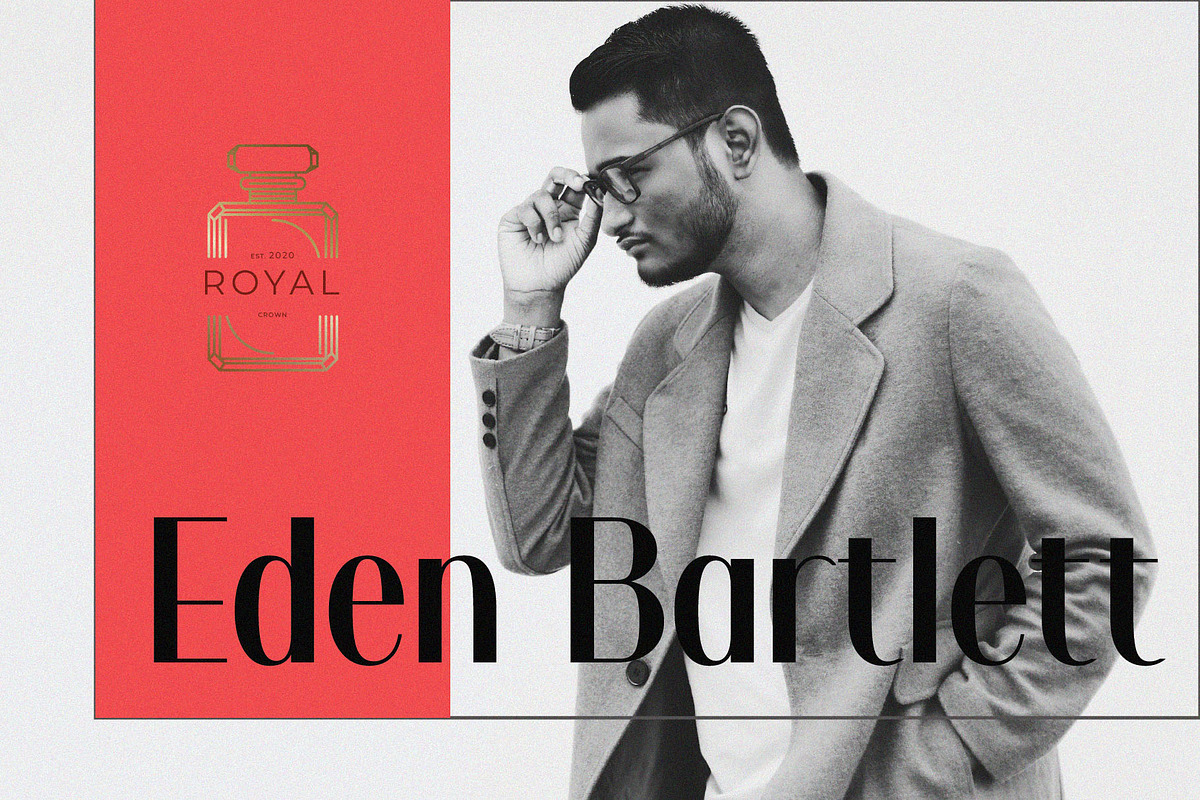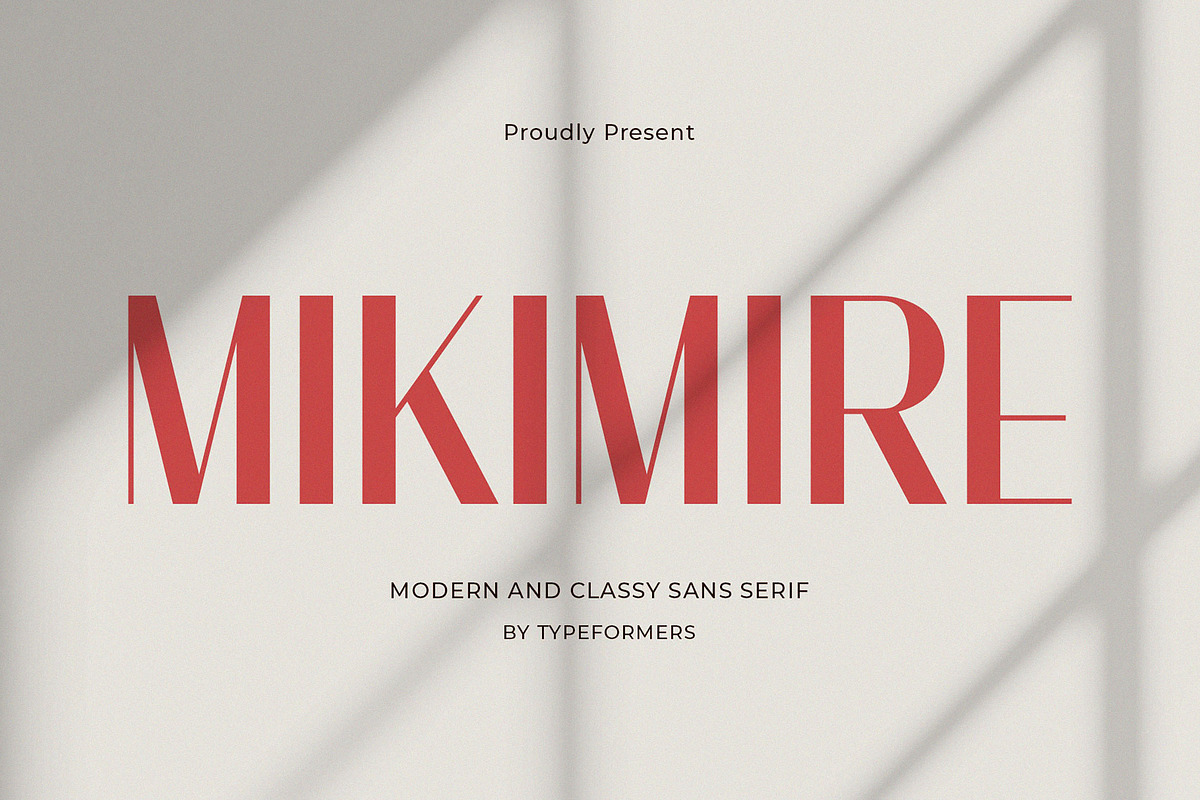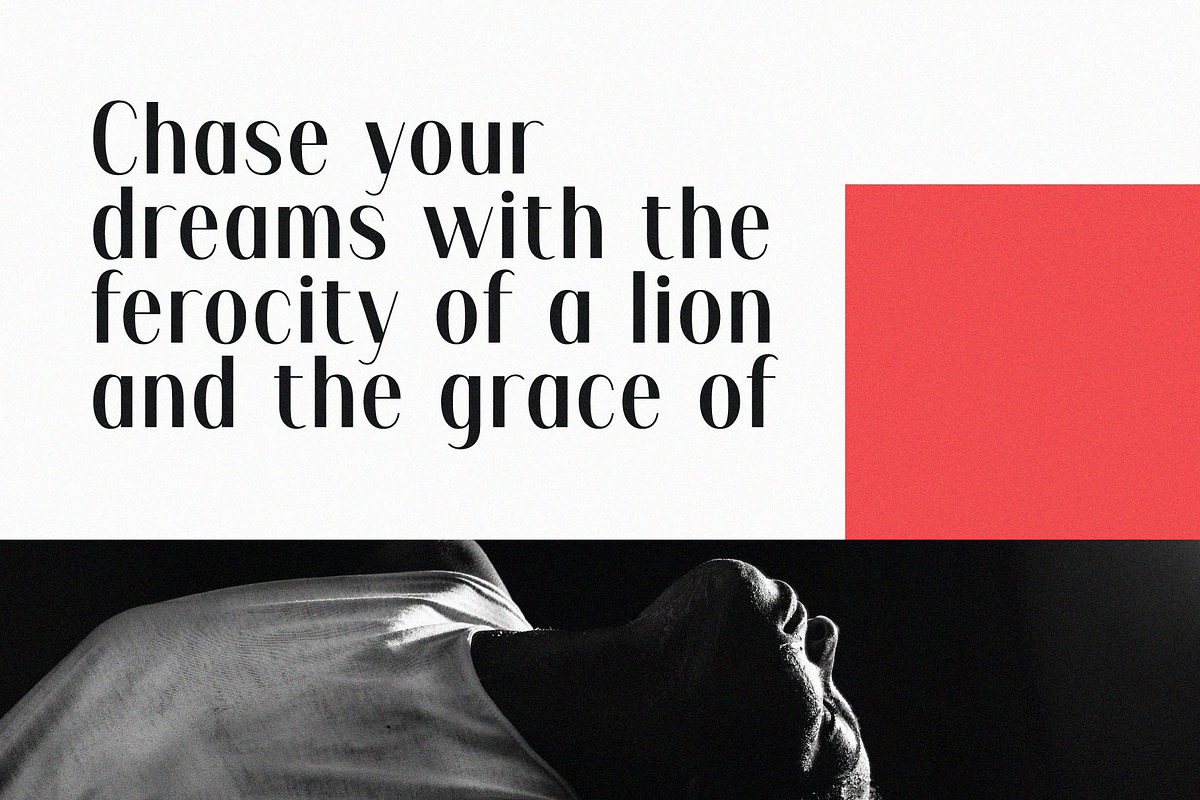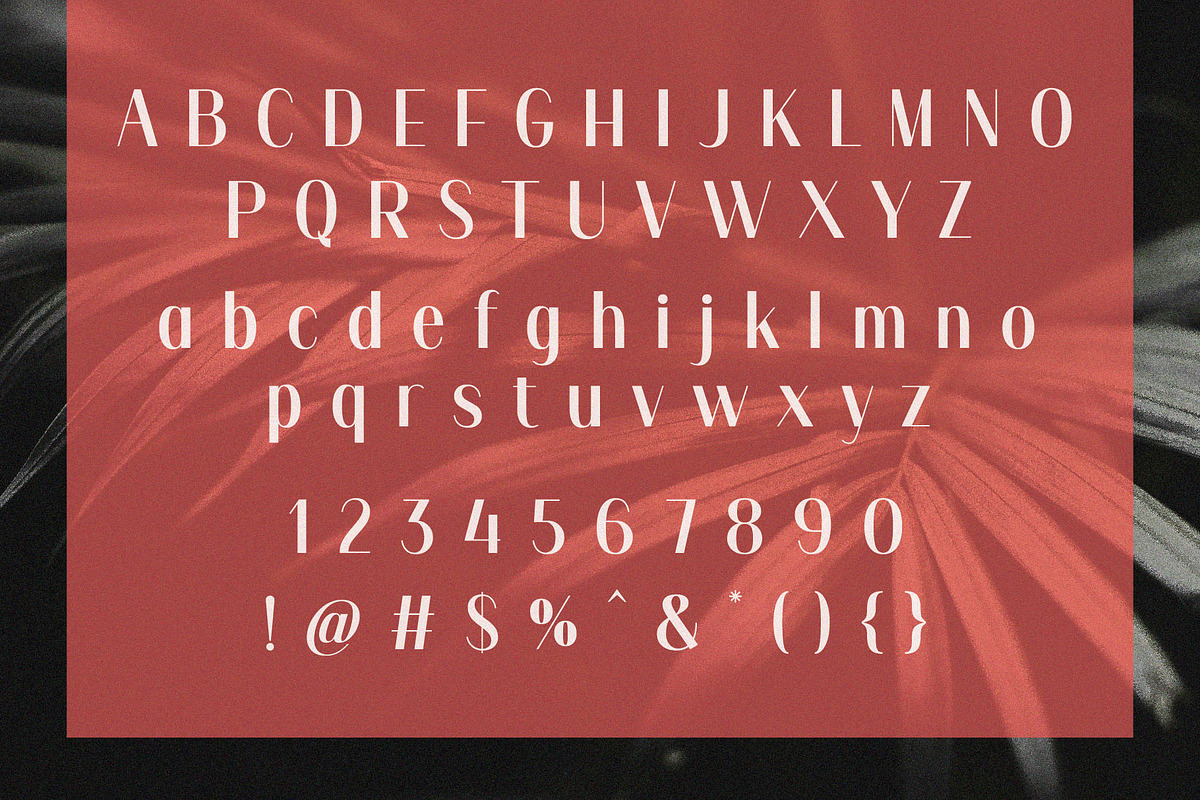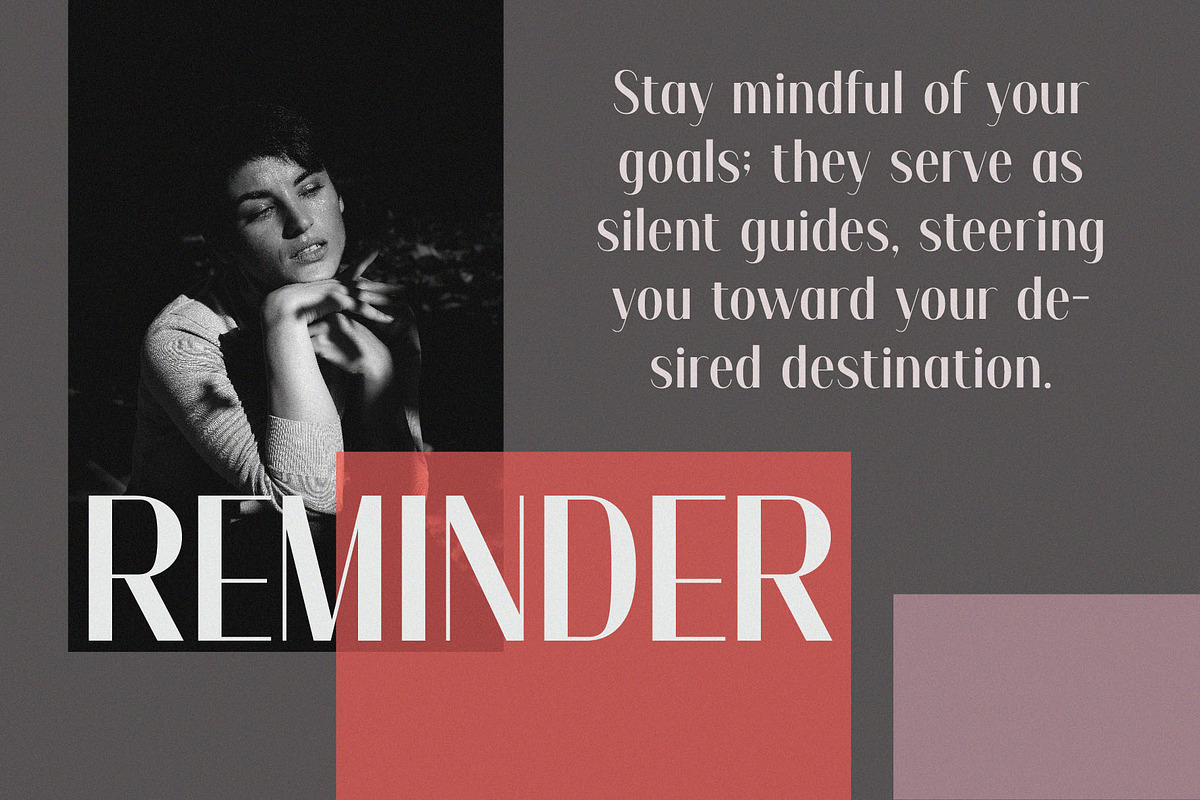
Mikimire - Elegant Sans Serif
Introducing Mikimire - Elegant Sans Serif. Mikimire is a modern and simple font, best used as a display for headings, logos, branding, magazines, product packaging and invitations. Thank you.